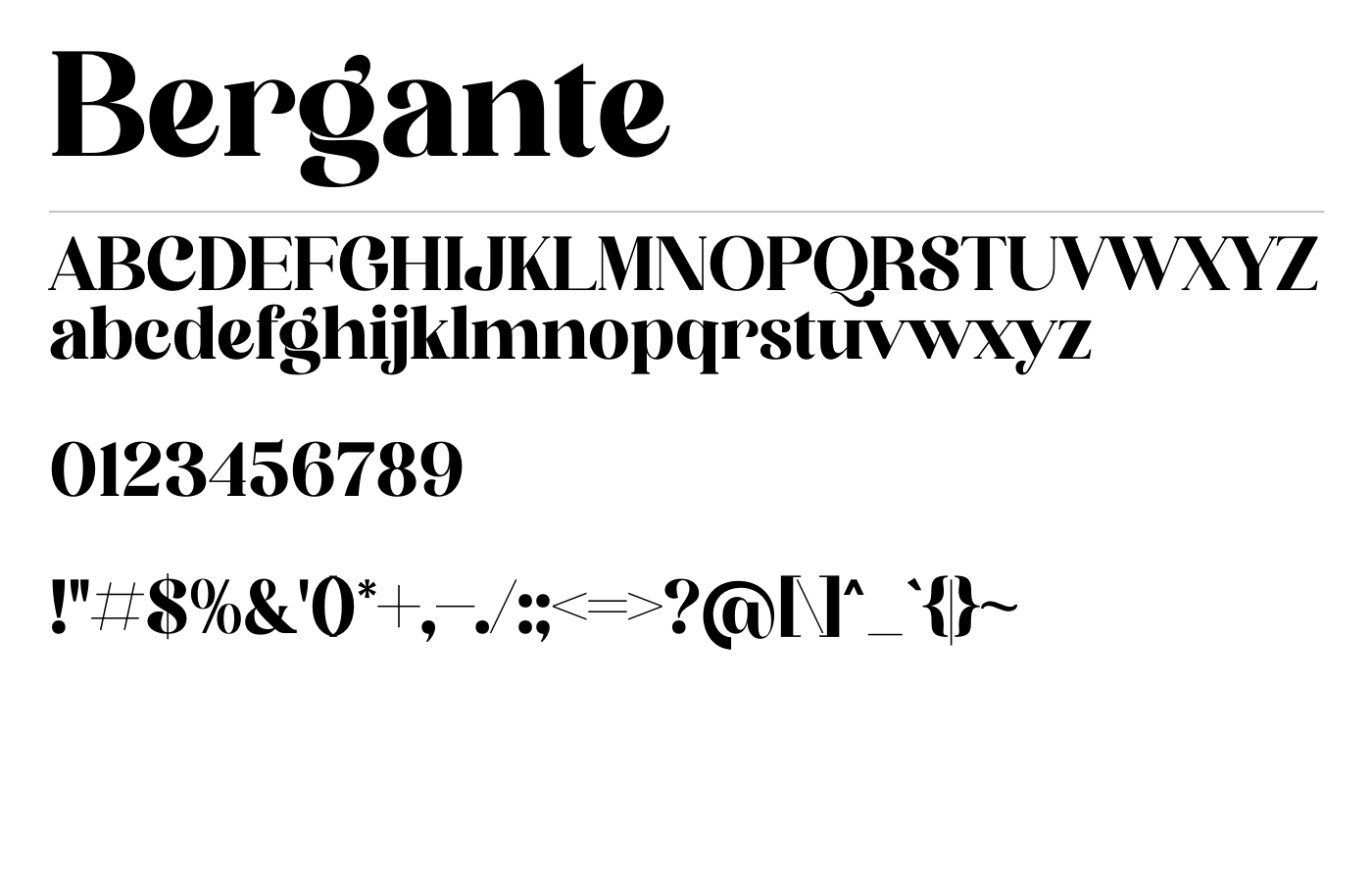
Bergante is a bold serif font with strong contrast between thick and thin strokes, featuring elegant, slightly bracketed serifs and distinctive, stylish curves that give it a refined yet modern feel. Its tall x-height and balanced proportions make it ideal for sophisticated branding, editorial headlines, and luxury packaging, where a commanding yet graceful presence is desired. This font combines classic elegance with contemporary flair, making it perfect for projects seeking a touch of high-end personality and readability.
Bergante Font
About Bergante Font